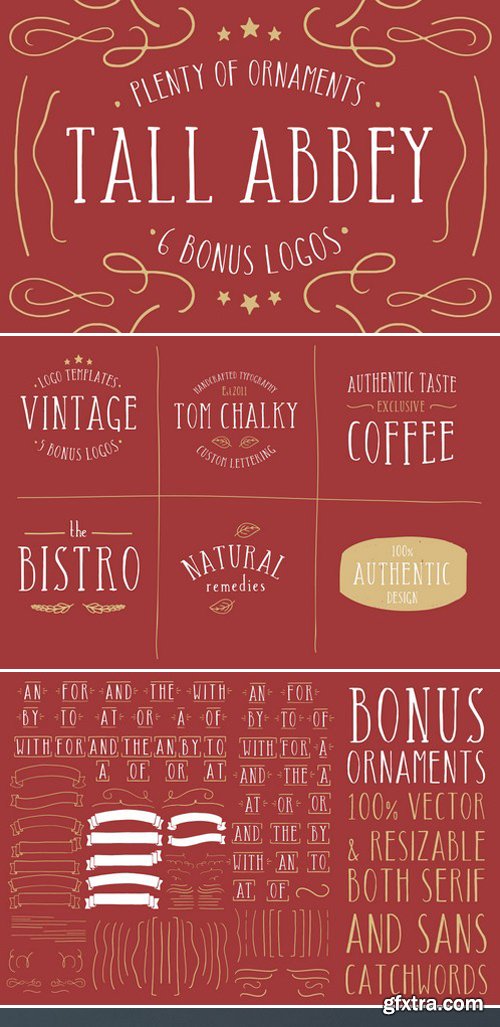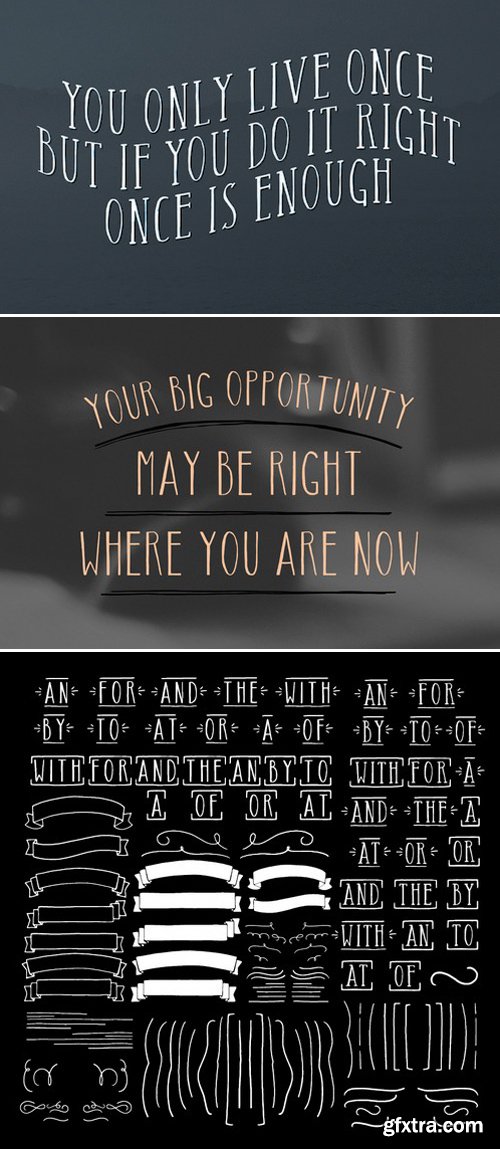
CM - Tall Abbey Bundle
- Tall Abbey was based on my partners handwriting and with a few tweaks here and there it turned into one of my all time favorite fonts. Recently, I have extended Tall Abbey into being a multilingual font that covers all Latin 1 glyphs.